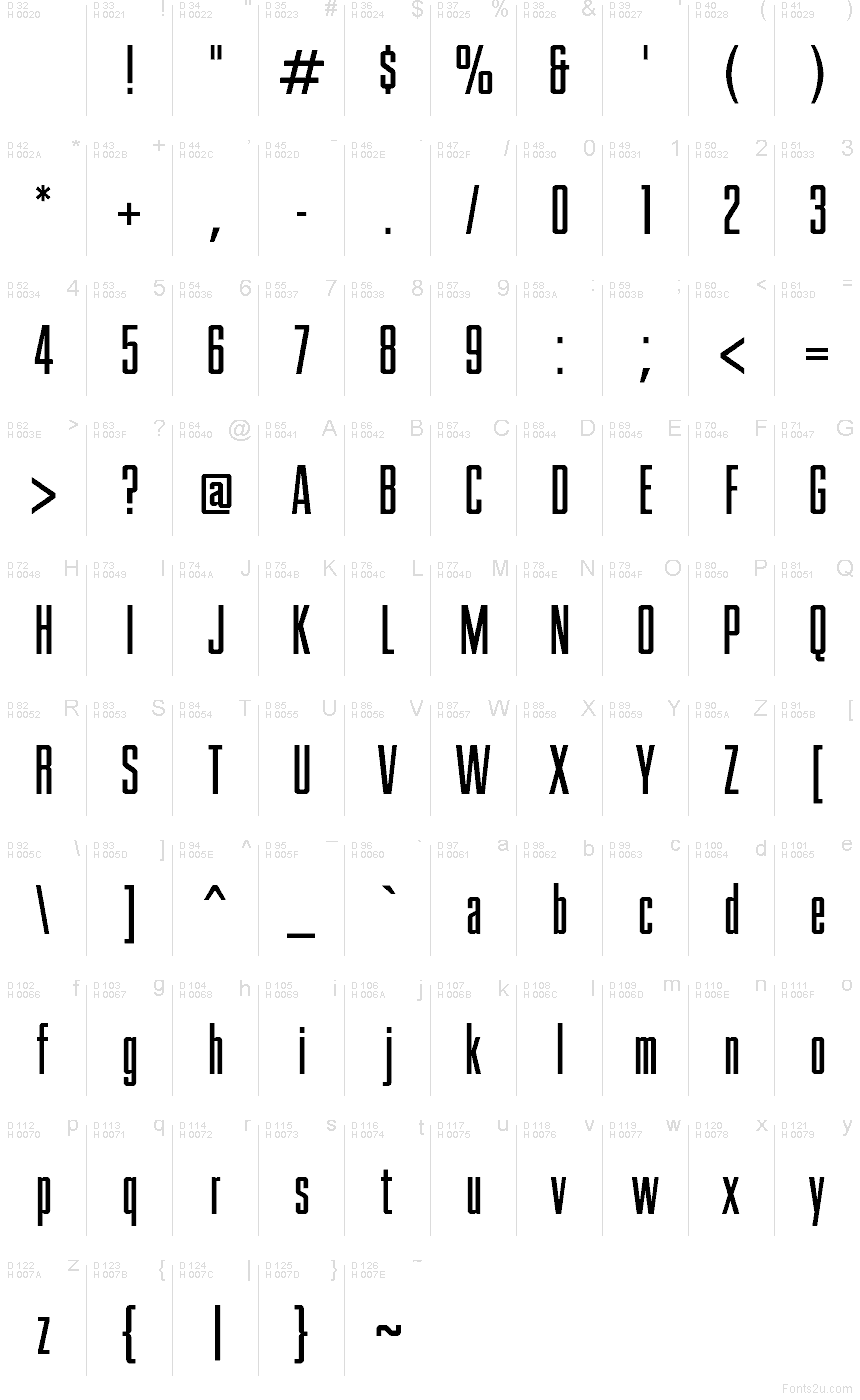
TC Rogue
TC Rogue font by Type City Font Co. is a free Factory PoMo display typeface that feels stamped, pressed, and bolted into place. Its tall, condensed letterforms and squared-off curves recall industrial signage, warehouse labels, and late-20th-century machinery branding—functional, forceful, and unapologetically blunt. The geometry is strict but not precious, giving the font a postmodern edge that feels manufactured rather than futuristic.
Using TC Rogue gives your typography a hard vertical rhythm that reads like warnings, instructions, or brand marks pulled straight from a factory floor. This free font excels in posters, logos, streetwear branding, album covers, game interfaces, and editorial layouts that lean into industrial grit and utilitarian design. For balance, pair it with a neutral grotesque or humanist sans for body text, and let TC Rogue carry the weight at headline sizes where its mechanical structure can assert itself.